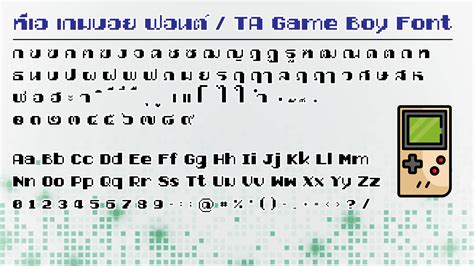
The Game Boy, a iconic handheld gaming console released by Nintendo in 1989, has left an indelible mark on the gaming industry. One of the most distinctive features of the Game Boy is its unique font, often referred to as the Game Boy Font. This font has become synonymous with the retro gaming aesthetic and continues to be celebrated by enthusiasts and designers alike. In this post, we will delve into the history, characteristics, and enduring appeal of the Game Boy Font, exploring its impact on gaming and design.
The History of the Game Boy Font
The Game Boy Font was designed to be both functional and visually appealing, given the technical limitations of the time. The Game Boy's screen was monochrome, with a resolution of 160x144 pixels, and the font had to be clear and readable despite these constraints. The font was created to fit within the limited pixel space, ensuring that text in games was legible and easy to read. This design choice was crucial for the success of the Game Boy, as it allowed for a wide range of games that required clear text displays, from role-playing games (RPGs) to puzzle games.
Characteristics of the Game Boy Font
The Game Boy Font is characterized by its pixelated, blocky appearance, which is a direct result of the hardware limitations of the Game Boy. The font features thick, bold lines and a limited character set, which includes uppercase and lowercase letters, numbers, and basic punctuation. The design is simple yet effective, with each character occupying a fixed width and height, making it easy to align text within the game's interface.
One of the most notable features of the Game Boy Font is its use of a fixed-width design. This means that each character takes up the same amount of horizontal space, which makes it easier to align text and create a consistent look across different games. The font also includes a set of special characters, such as arrows and symbols, which were often used in game menus and interfaces.
The Enduring Appeal of the Game Boy Font
The Game Boy Font has maintained its popularity long after the console's heyday. Its retro aesthetic has made it a favorite among designers and gamers who appreciate the nostalgia of 8-bit and 16-bit gaming. The font's simplicity and clarity make it a versatile choice for a variety of design projects, from digital art to web design. Its pixelated style is often used to evoke a sense of nostalgia and retro charm, making it a popular choice for indie games and digital media.
One of the reasons the Game Boy Font has endured is its association with some of the most beloved games of all time. Titles like Pokémon Red and Blue, The Legend of Zelda: Link's Awakening, and Tetris all feature the Game Boy Font prominently, and these games have left a lasting impact on generations of gamers. The font's use in these iconic titles has helped to cement its place in gaming history and continues to inspire new generations of designers and developers.
Using the Game Boy Font in Modern Design
Despite being designed for a console from the late 1980s, the Game Boy Font remains relevant in modern design. Its pixelated style is often used in digital art, web design, and graphic design to create a retro aesthetic. Designers can incorporate the Game Boy Font into their projects to evoke a sense of nostalgia and authenticity, making it a valuable tool for creating visually appealing and emotionally resonant designs.
Here are some ways to use the Game Boy Font in modern design:
- Digital Art: The Game Boy Font can be used to create pixel art and digital illustrations that capture the retro gaming aesthetic. Its blocky, pixelated style is perfect for creating characters, backgrounds, and other elements in digital art.
- Web Design: The font can be used in web design to create a retro-themed website. Its fixed-width design makes it easy to align text and create a consistent look across different pages. The font's simplicity and clarity make it a great choice for headings, menus, and other text elements.
- Graphic Design: The Game Boy Font can be used in graphic design projects to create posters, flyers, and other promotional materials. Its retro aesthetic makes it a popular choice for events and projects that aim to evoke a sense of nostalgia and authenticity.
When using the Game Boy Font in modern design, it's important to consider the context and audience. The font's retro aesthetic may not be suitable for all projects, but when used appropriately, it can add a unique and memorable touch to any design.
Creating Your Own Game Boy Font
For designers who want to create their own version of the Game Boy Font, there are several tools and techniques available. One popular method is to use pixel art software, such as Aseprite or GraphicsGale, to design each character from scratch. These tools allow designers to create pixel-perfect characters that can be used in digital art, web design, and graphic design projects.
Here are the steps to create your own Game Boy Font:
- Choose a pixel art software that supports vector graphics, such as Aseprite or GraphicsGale.